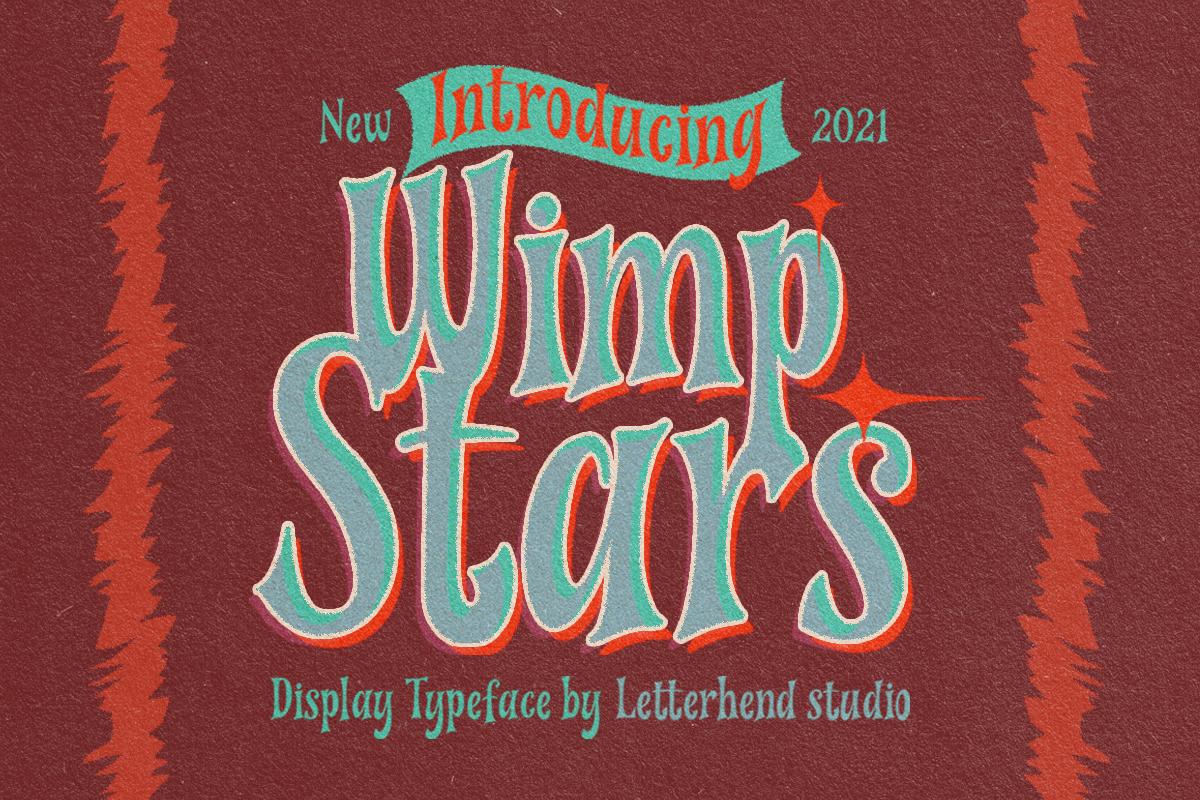
Wimp Stars Font
Wimp Stars Font is perfect for whimsical children's entertainment branding, playful indie band logos, quirky social media graphics, gentle comedy show materials, soft-hearted character designs, endearing animation titles, humble superhero parodies, charming underdog story promotions, sweet vulnerability campaigns, and lovable misfit merchandise designs. This endearing typeface brings gentle charm to underdog sports teams, shy character mascots, humble comedy productions, gentle gaming interfaces, and heartwarming storytelling platforms.
Wimp Stars Font is exciting because it celebrates the unexpected heroism and gentle strength found in vulnerability through its charmingly modest letterforms that prove softness can be a superpower. The font features delicate characters with humble proportions and endearing details that evoke the quiet courage of gentle souls, the hidden strength of sensitive hearts, and the surprising power of those who lead with kindness rather than force. Its distinctive construction demonstrates gentle authenticity with carefully crafted elements that create an immediate sense of approachable charm and vulnerable strength. The font's humble presence and gentle authenticity make it perfect for brands seeking to communicate that being gentle is heroic, vulnerability is strength, and the meek can indeed inherit the earth in their visual communications.
Wimp Stars Font family includes various gentle styles: Light, Regular, Medium, Bold, Soft, Gentle, Humble, Sweet, Condensed, Extended, Tender, and Vulnerable variants. Each family member maintains the core gentle DNA while offering different levels of softness for diverse heartwarming design applications. The comprehensive font collection ensures consistent gentle branding across underdog campaigns, vulnerable storytelling products, and soft-hearted communication materials.
Whether you're creating underdog brand identities, designing gentle marketing materials, developing humble website headers, or crafting vulnerability-focused promotional campaigns, Wimp Stars Font delivers outstanding gentle appeal and vulnerable authenticity. The font's distinctive soft personality excels in humble logos, gentle packaging design, vulnerable applications, and heartwarming projects where soft strength and gentle heroism are essential.